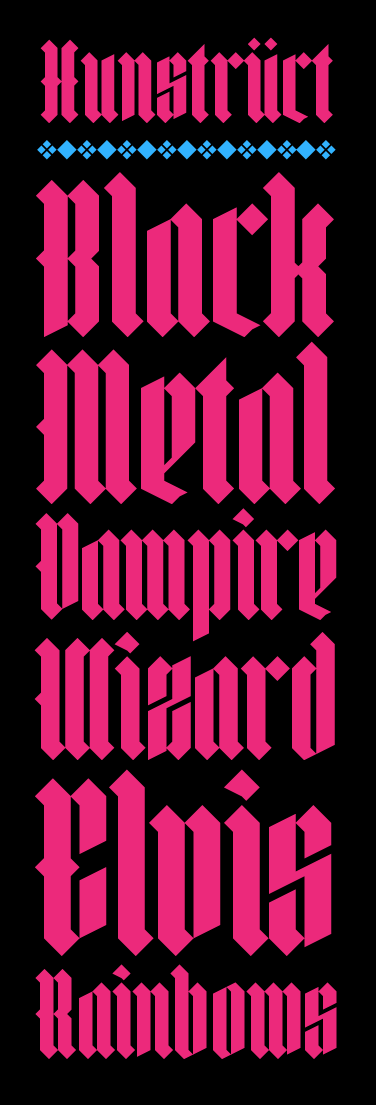
Excellent!
A very nice addition. I still think your 'k' is a bit suspect.
Have you tried it like this.
Mmm, the s and z take the most advantage of this variation. I like the parallel "cut" into their counters.
btw is that your heavy metal band's flyer? looong name. Not much of a headbanger myself, but I would go :)
Big andbeautiful :)
@cayo. The taller version makes the 's' solution work much better. I am indeed a fan of Metal but I'm not in a band. The sample is just a sample of words. Not a flyer. Maybe 'Hunstrüct will be my fictional band name ;-) Look for our new record: "Vampires Are The New Black".
@djnippa. I like it. A lot. I'll play around with your solutions and see what works best.
Awesome...good variation of the original.
I like djnippa's k on the right. The current k could be confused for the h.
Good eyes everyone. Thanks. The 'k' has been updated both here and in the original.
I like both versions. Their classic beauty - a feast to my eyes. 10/10
This is even nicer.
I don't know why I just thought of it since this has nothing to do with Metal, but it would be, as Feynman might have said, "inter·es·ting" to have cookies baked in the shape of these letters. Then you could really eat them up.
Or maybe chocolate in the shape of Hunstrüct.
Or mints.
Or pasta.
OK, now I'm just being silly.
(I can just imagine you say, "Now!?" ;)
@thalamic Great idea. How about Hunstrüct embossed chocolate squares? Perfect for Halloween. I could send them out as bribes for FS votes ;-)
Why isn't this a Top Pick yet?
Good question dj.
Congratulations! FontStruct Staff have deemed your FontStruction worthy of special mention. “Hunstruct Tall” is now a Top Pick.
even more perfect for ambigrams than the shorter version